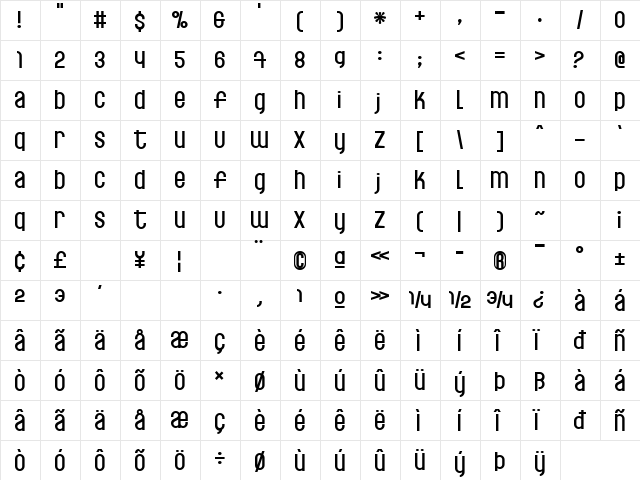
Fishsoup Regular
Design Context for Fishsoup Typeface
Fishsoup takes a measured approach to typography — its balanced proportions and neutral character make it a reliable workhorse for both digital and print work.